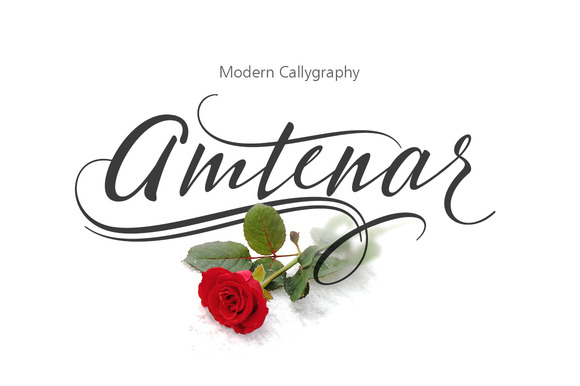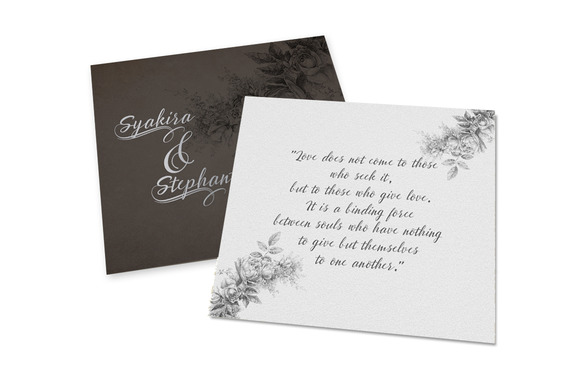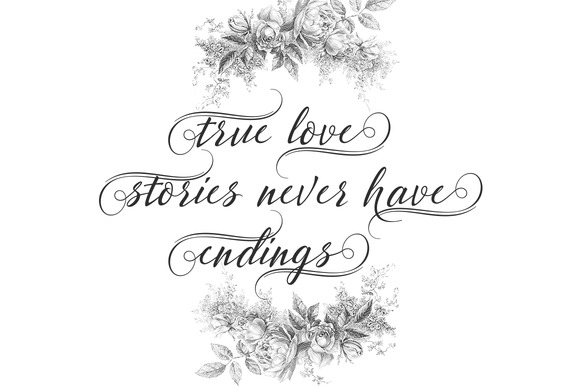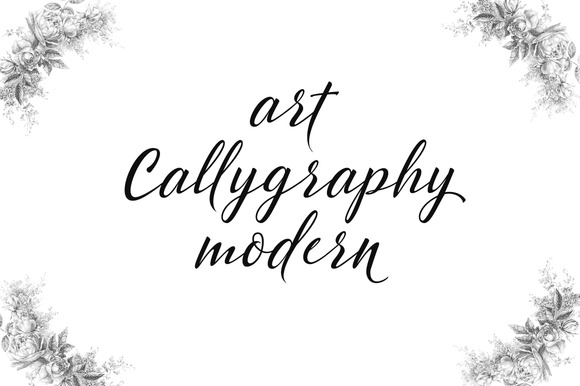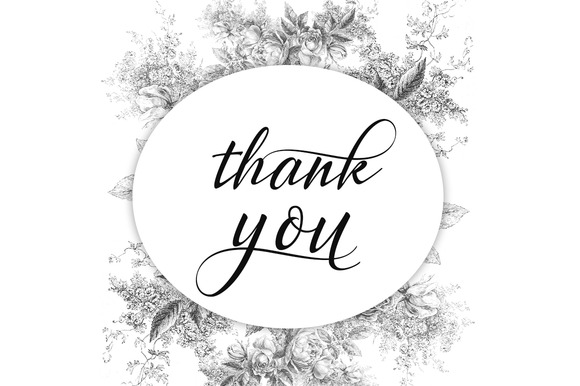
Freestyle by Groens
Freestyle is a font that made the hand by having the character up and down like a dancer. Freestyle has a very unique style of calligraphy, it is very suitable for use in the work of modern design.
Notulen by Groens
Notulen is is a calligraphy font, has written a model dancing, so beautiful and unique, it is a model of modern calligraphy typefaces, in combination with a calligraphy writing style.
Matador by Groens
Matador Update is a font bold, so, brush script that is beautiful and unique, it is a model of modern calligraphy typefaces, in combination with a calligraphy writing style.
Amtenar by Groens
Amtenar is a font scripModern Calligraphy, so, font script that is beautiful and unique, it is a model of modern calligraphy typefaces, in combination with a calligraphy writing style. total 378 glyph.
Exoticus by Groens
Exoticus is a font scrip,handdrawn, so, font script that is beautiful and unique, it is a model of modern calligraphy typefaces, in combination with a calligraphy writing style.
Mutiara by Groens
mutiara is a script font that has the characteristic nature, it is very suitable to make certain label and event business and you could be using for a unique piece.